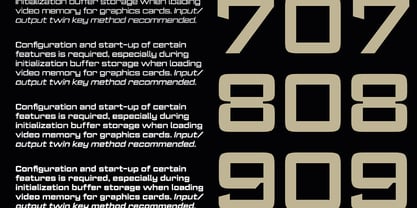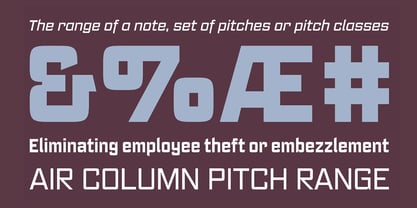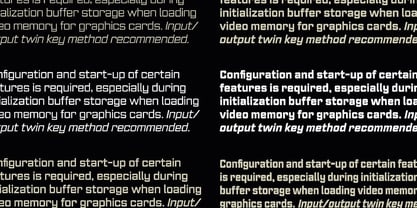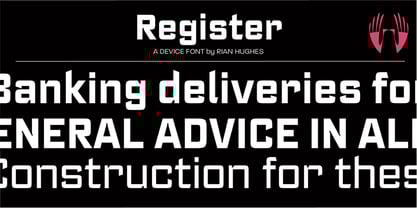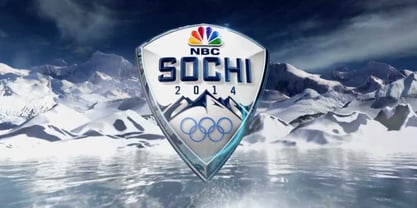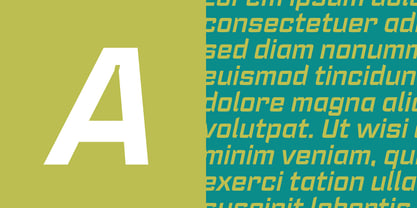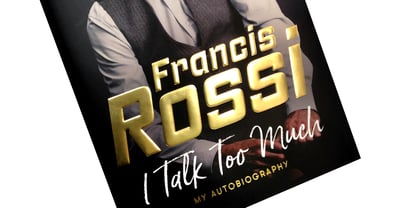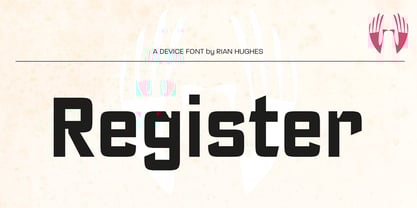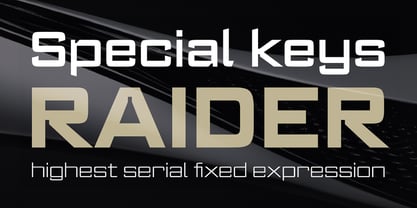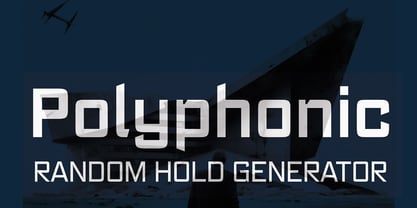
Register
by Device
Register Font Family was designed by Rian Hughes and published by Device. Register contains 30 styles family package options.
The capitals of Register share a similar construction to Morris Fuller Benton’s 1930 Bank Gothic for American Type Founders, but iron out the broader curves and add ‘ink traps’ to emphasise the machine aesthetic. Register also provides the lower case missing from Bank Gothic. Available in two main widths, each in five weights plus reweighted italics with cursively-derived letterforms, plus a bold condensed, Register has been used for the Sochi Winter Olympics, Source magazine and releases from Transient Records.